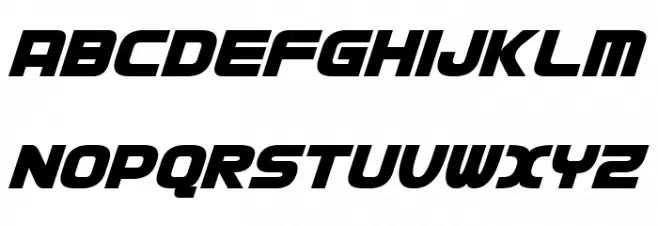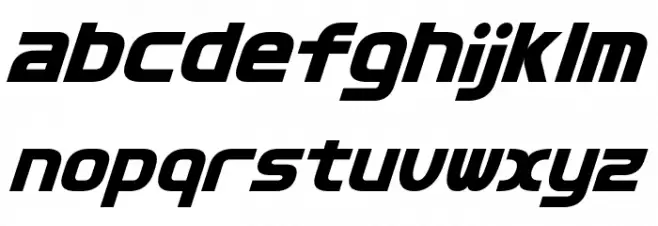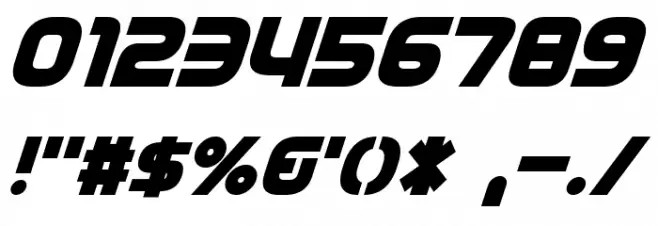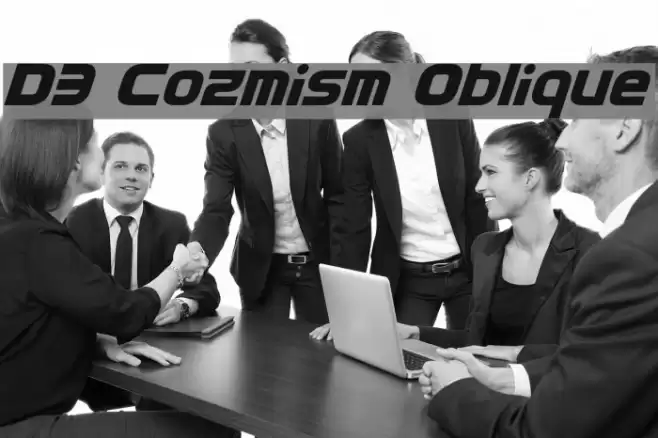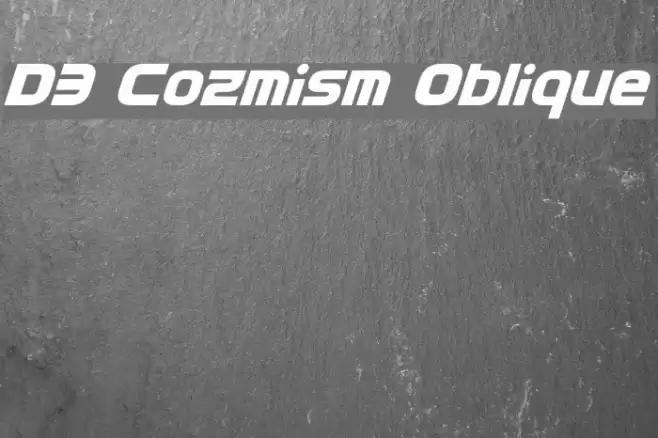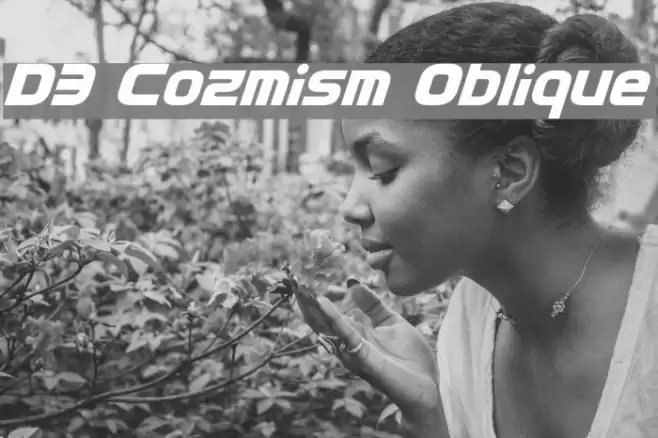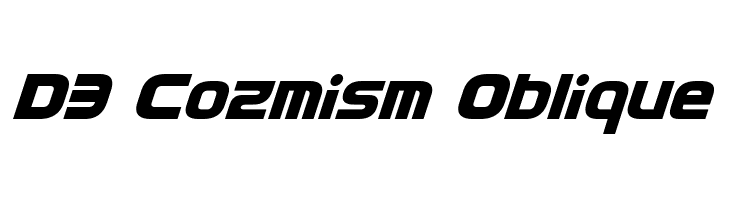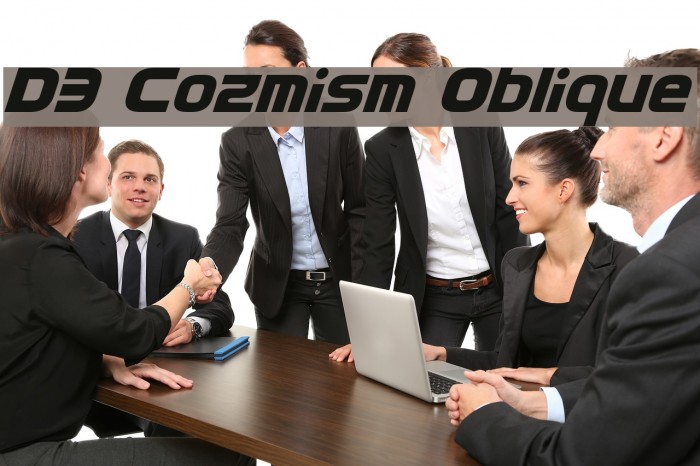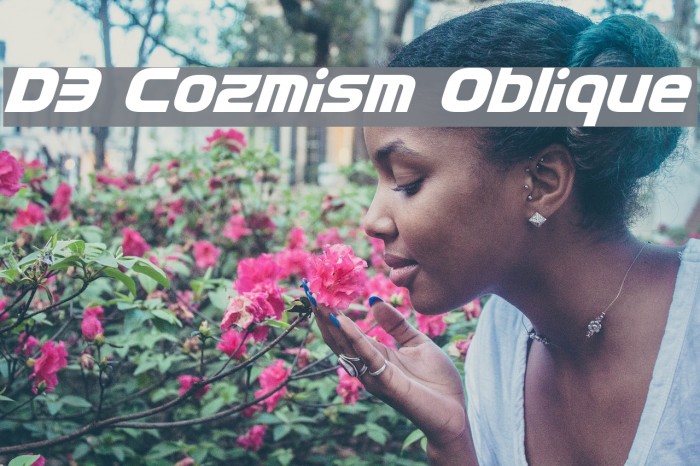
D3 Cozmism Oblique
This font features a futuristic and dynamic style with a distinct oblique slant, giving it a sense of motion and speed. The characters are bold and have a geometric structure, with sharp angles and clean lines that create a modern and sleek appearance. The uppercase and lowercase letters maintain a consistent style, while the numerals and special characters complement the overall design. The font's boldness and unique style make it suitable for projects that require a strong visual impact.
A bold, futuristic font with an oblique slant and geometric design.
- Proposed Projects: Ideal for sci-fi themed designs, technology branding, video game titles, and dynamic posters.